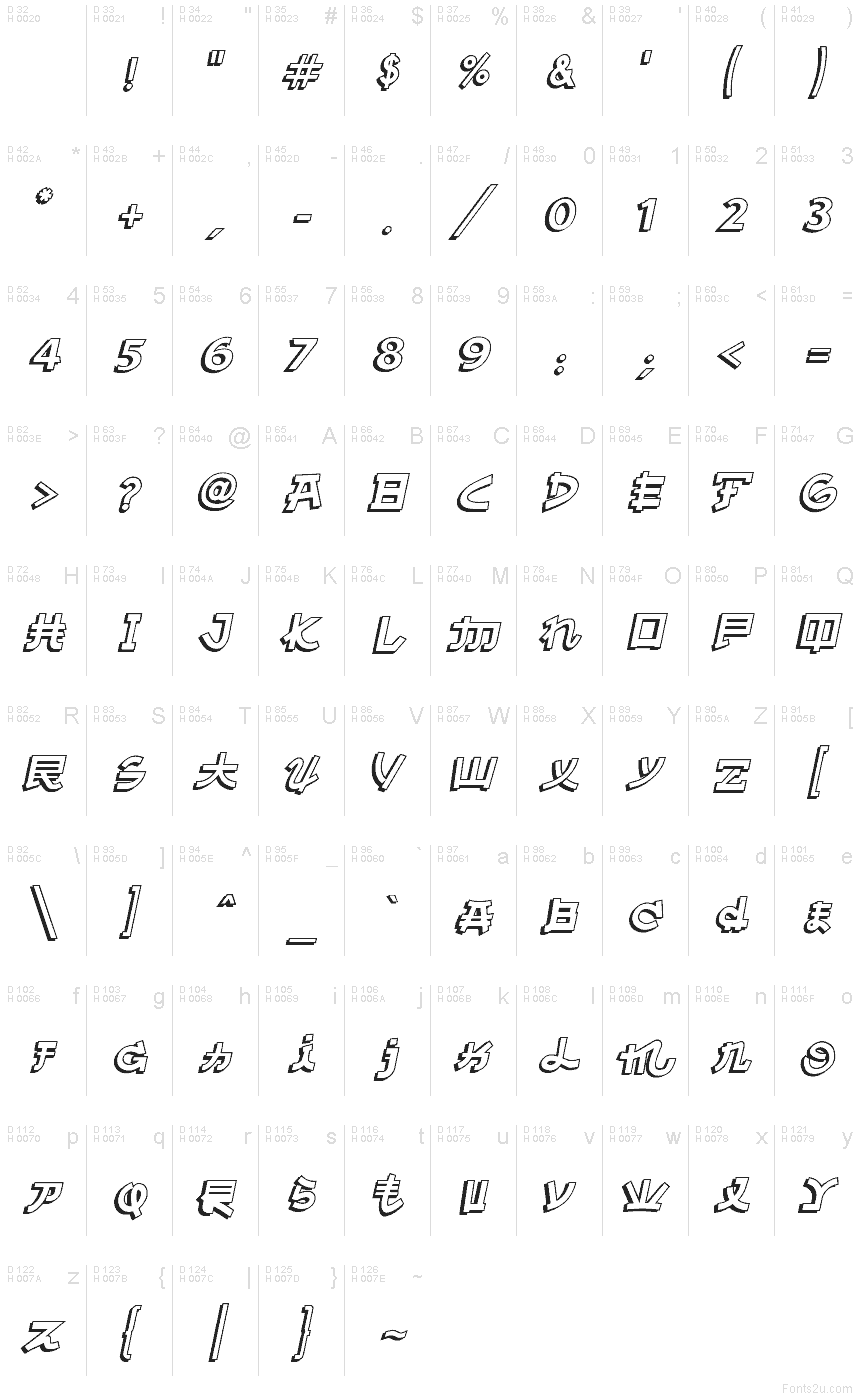
Almost Japanese Comic Italic
Almost Japanese Comic Italic font by Galdino Otten Fonts is a free faux‑Japanese decorative display font. Part of the Almost Japanese Comic family, it leans into bouncy, noodle‑like curves and swashy motion lines, giving headlines a playful, ink‑brushed tilt without getting heavy or solemn. The rhythm feels quick and chatty, with lively curls and tight joins that read as energetic rather than messy.
Using Almost Japanese Comic Italic, you can spark attention on ramen pop‑up posters, food truck menus, festival flyers, casual game titles, comic zines, stickers, and YouTube thumbnails. This free font shines when set big and bold; keep copy short and let the shapes do the talking. Pair with a simple, unstyled sans for body text to keep things legible and let the display strokes sing.